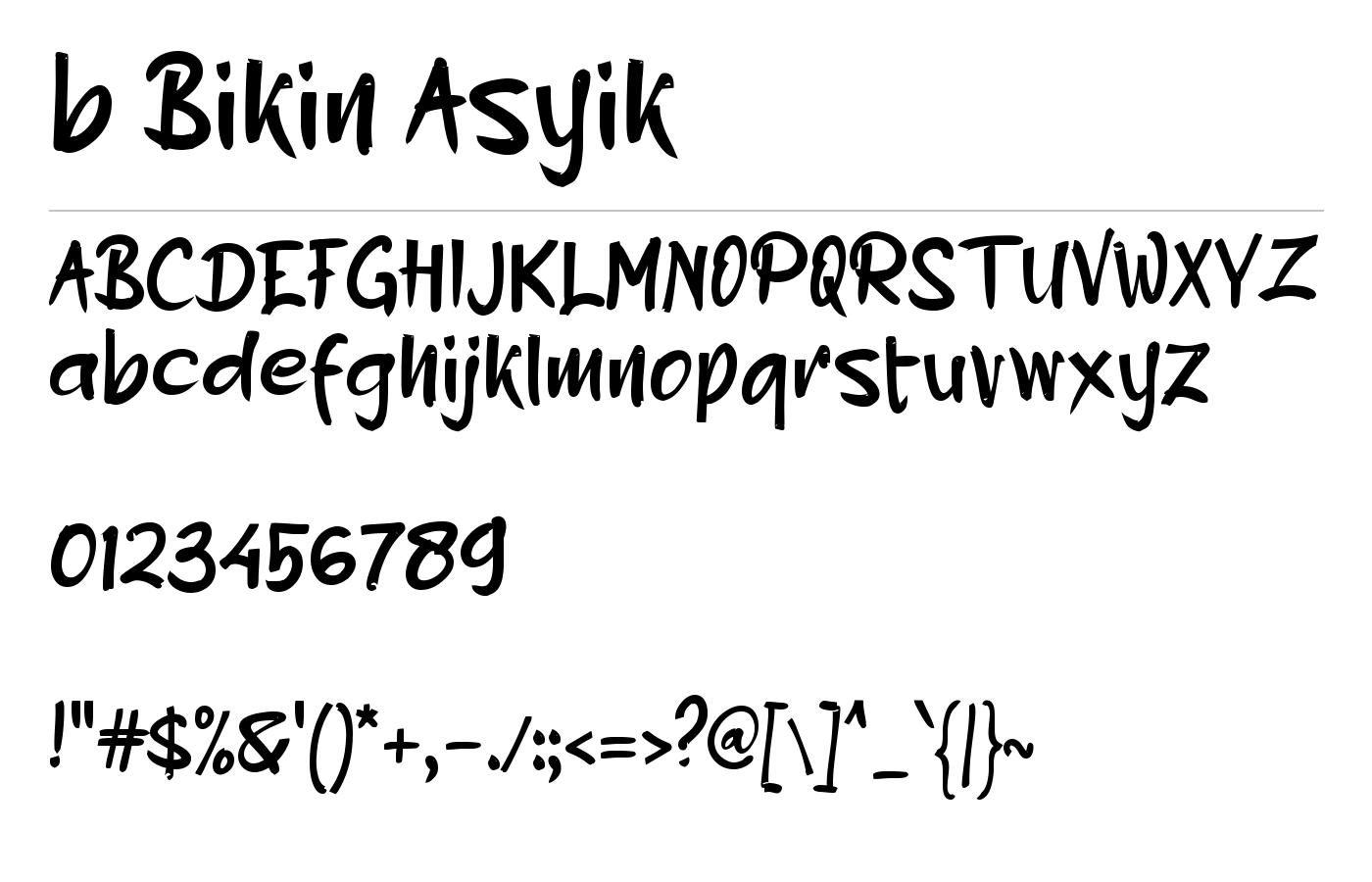
Bikin Asyik is a lively and playful handwritten font with smooth, rounded strokes and a casual, friendly vibe. Its medium weight and slightly condensed letterforms give it an energetic, informal feel, perfect for creative projects and youthful branding. Ideal for logos, posters, and invitations, this font adds a fun, approachable personality to any design.
b Bikin Asyik Font
About b Bikin Asyik Font